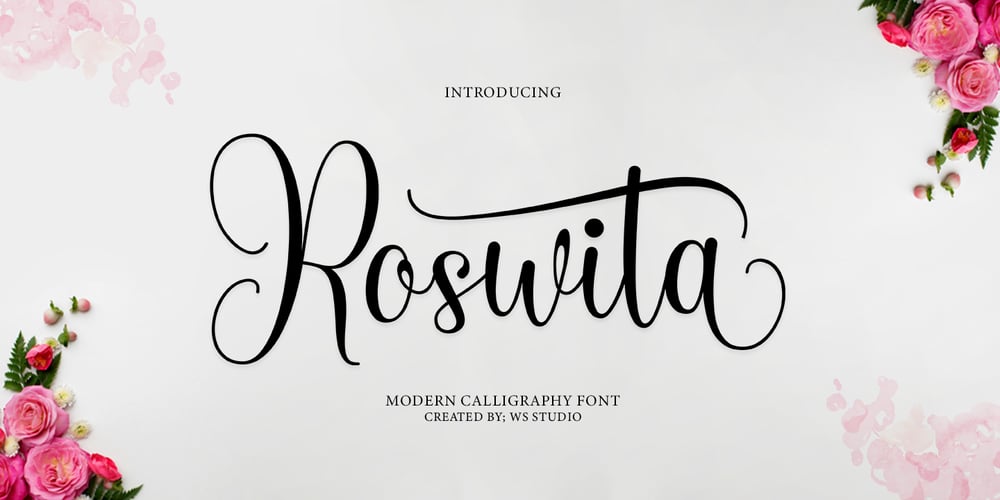
Roswita
Roswita font
Roswita Font Family was designed by Wais Alqarni and published by Ws Studio. Roswita contains 1 styles and family package options. Proudly Present, Roswita FontRoswita is an excellent handwritten font that will make your work stand out through its elegant and curvy lines. Great for product packaging, branding projects, magazine covers, social media, weddings, or simply used to express words over a background.also multilingual supportLigatureDustyEnjoy the font, feel free to comment or give feedback, send me a PM or email.Thank you!